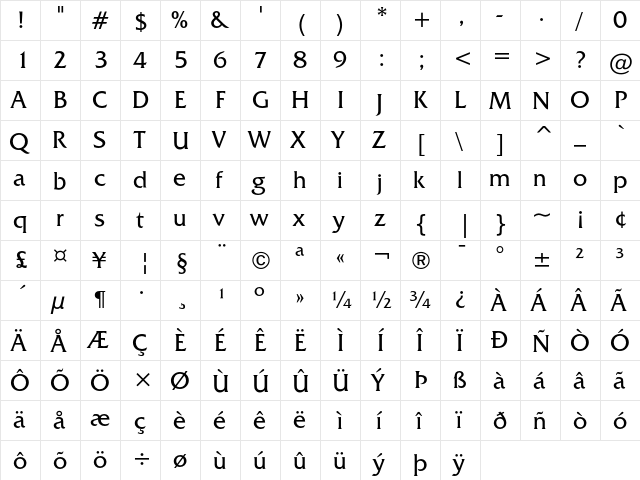
ITC Friz Quadrata Regular
Design Context for ITC Friz Quadrata Typeface
ITC Friz Quadrata takes a measured approach to typography — its balanced proportions and neutral character make it a reliable workhorse for both digital and print work.